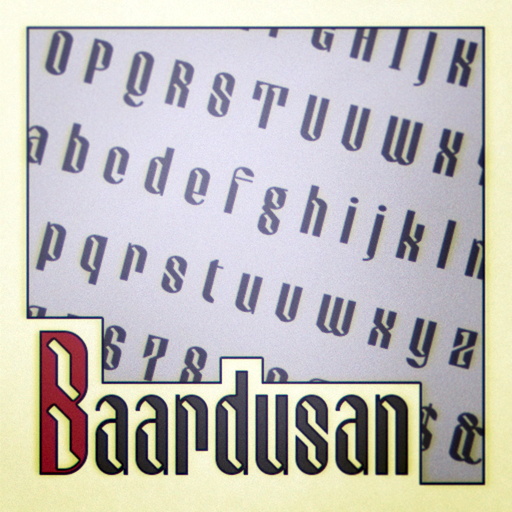
The little notch cut into the letters adds a unique design flair that looks quite nice
A really option to win. I like it a lot! My 10 2U.
The diagonals in this are great!